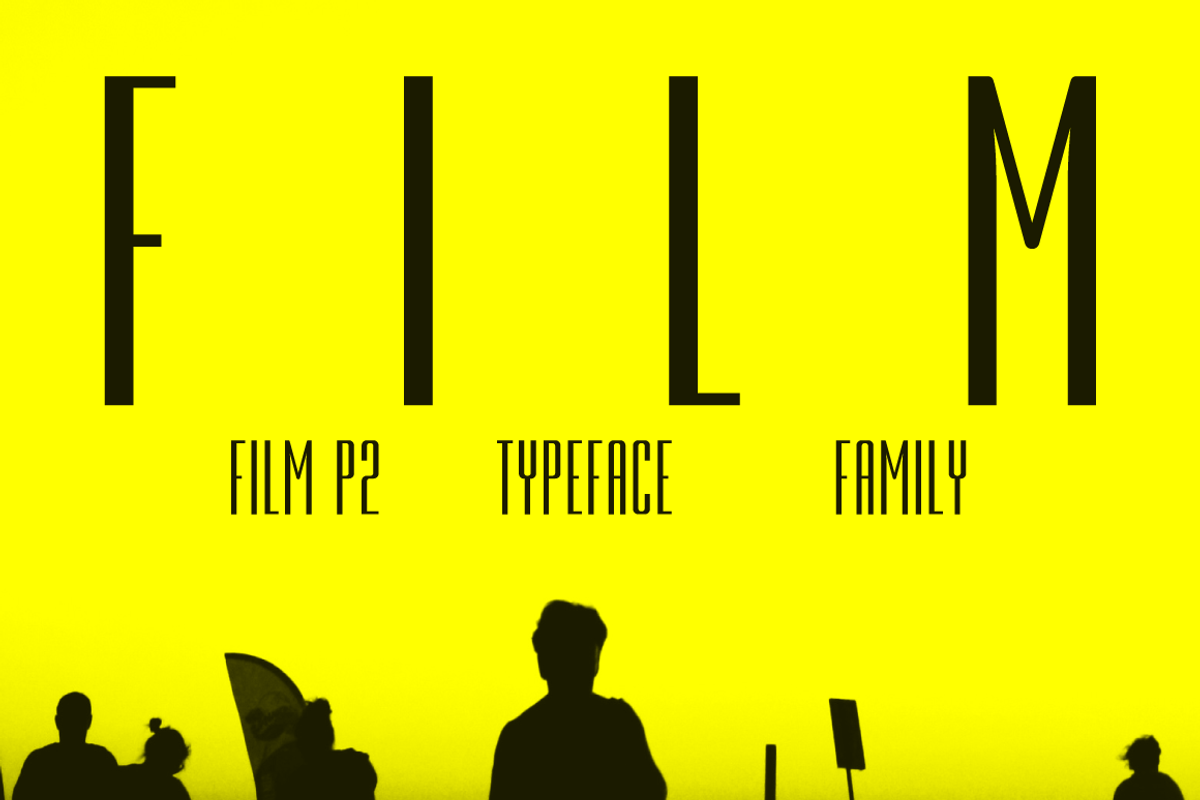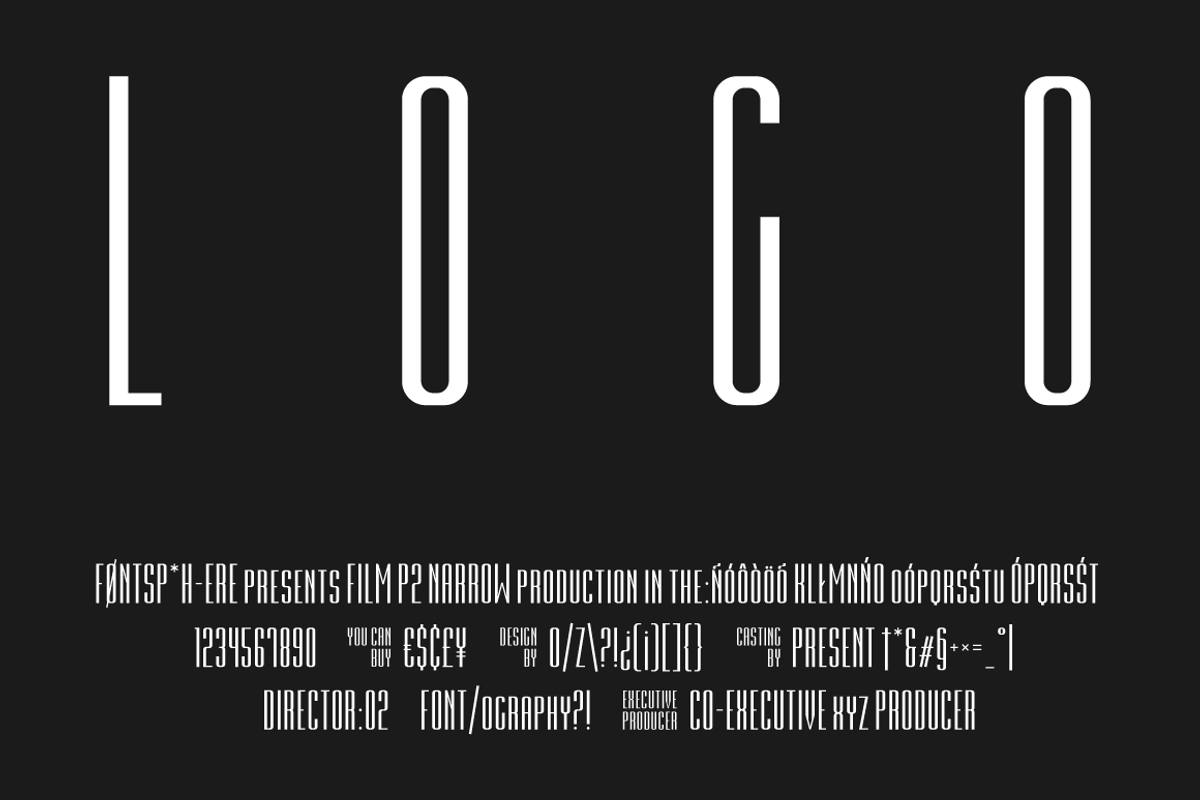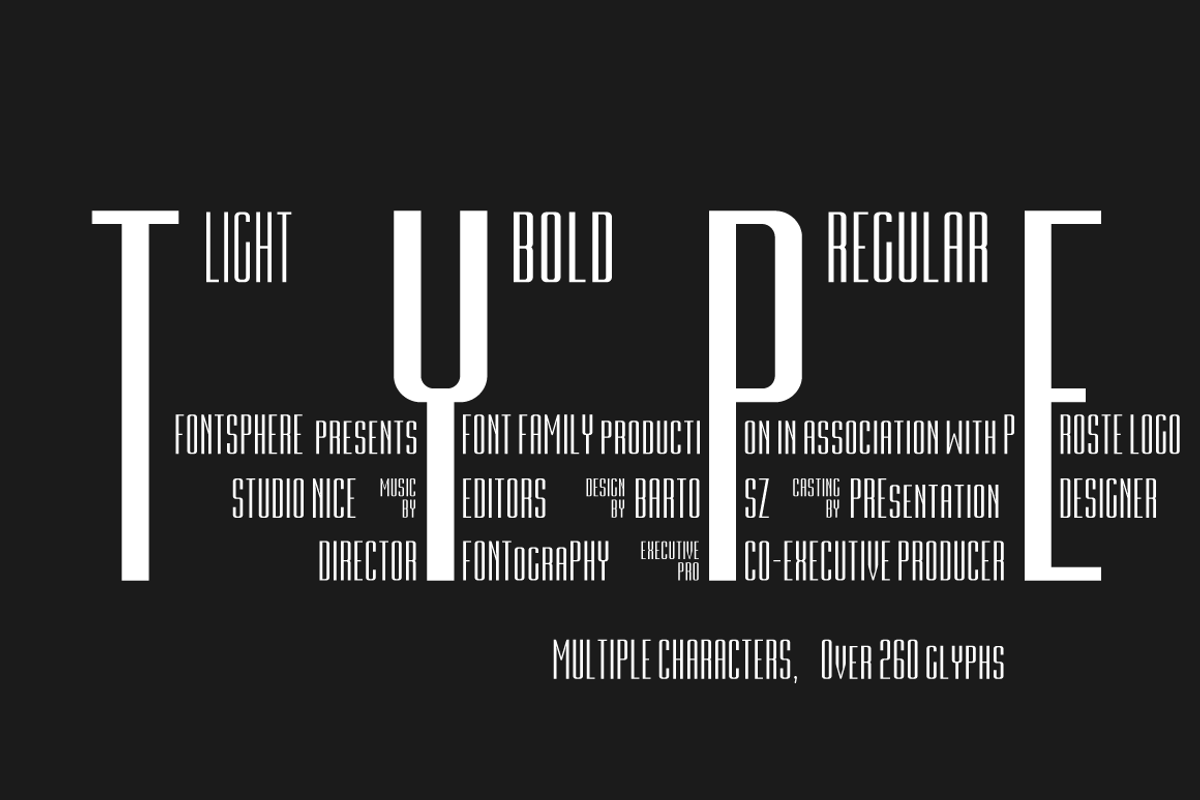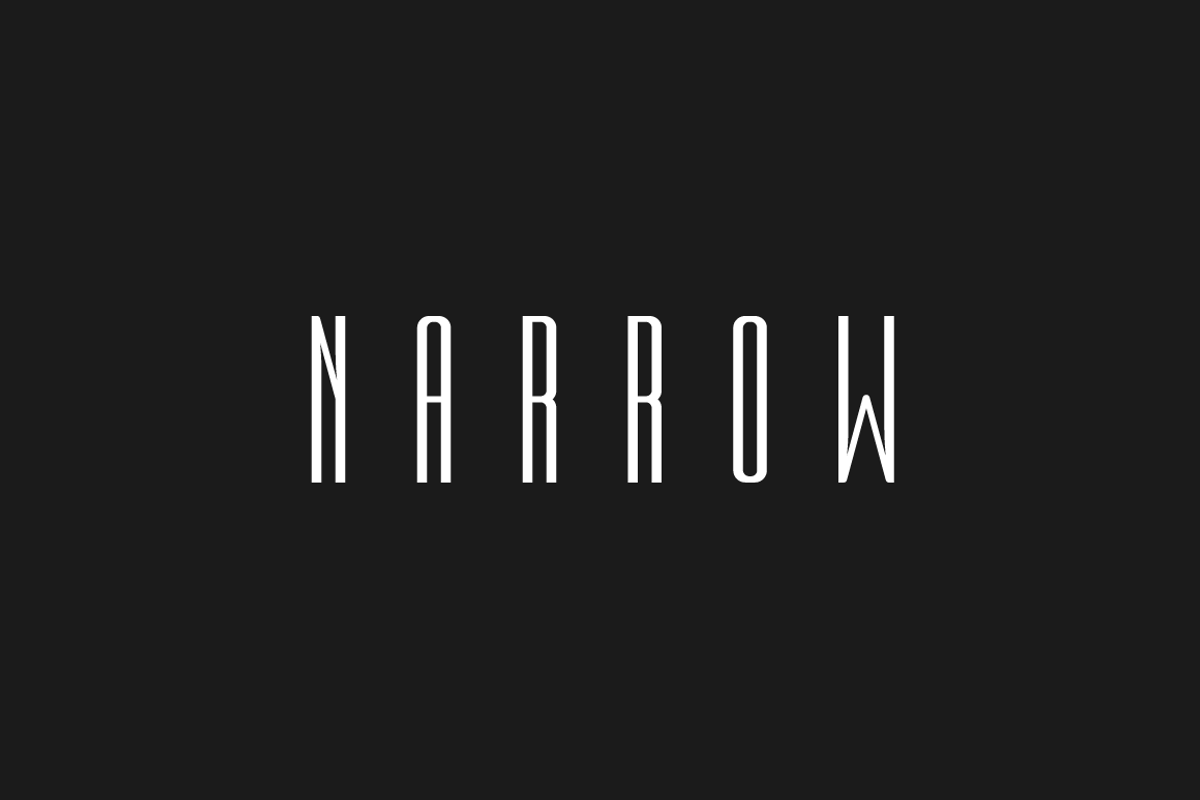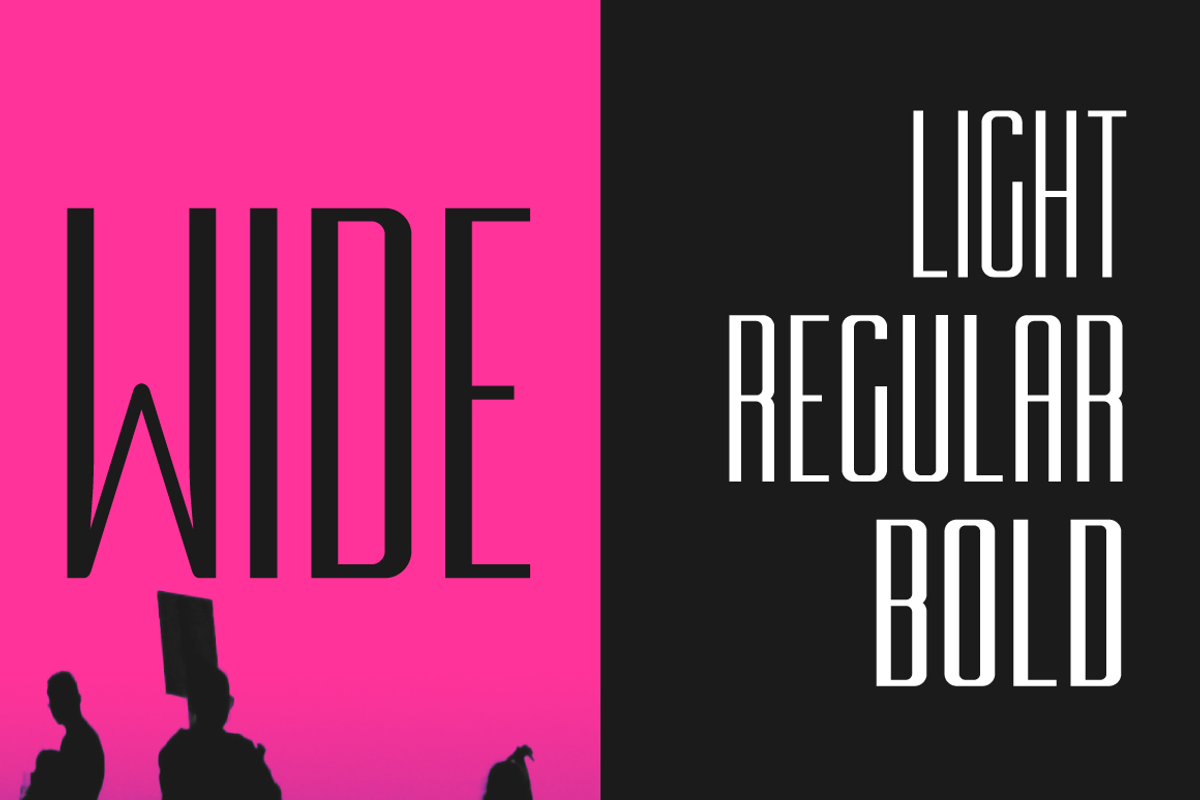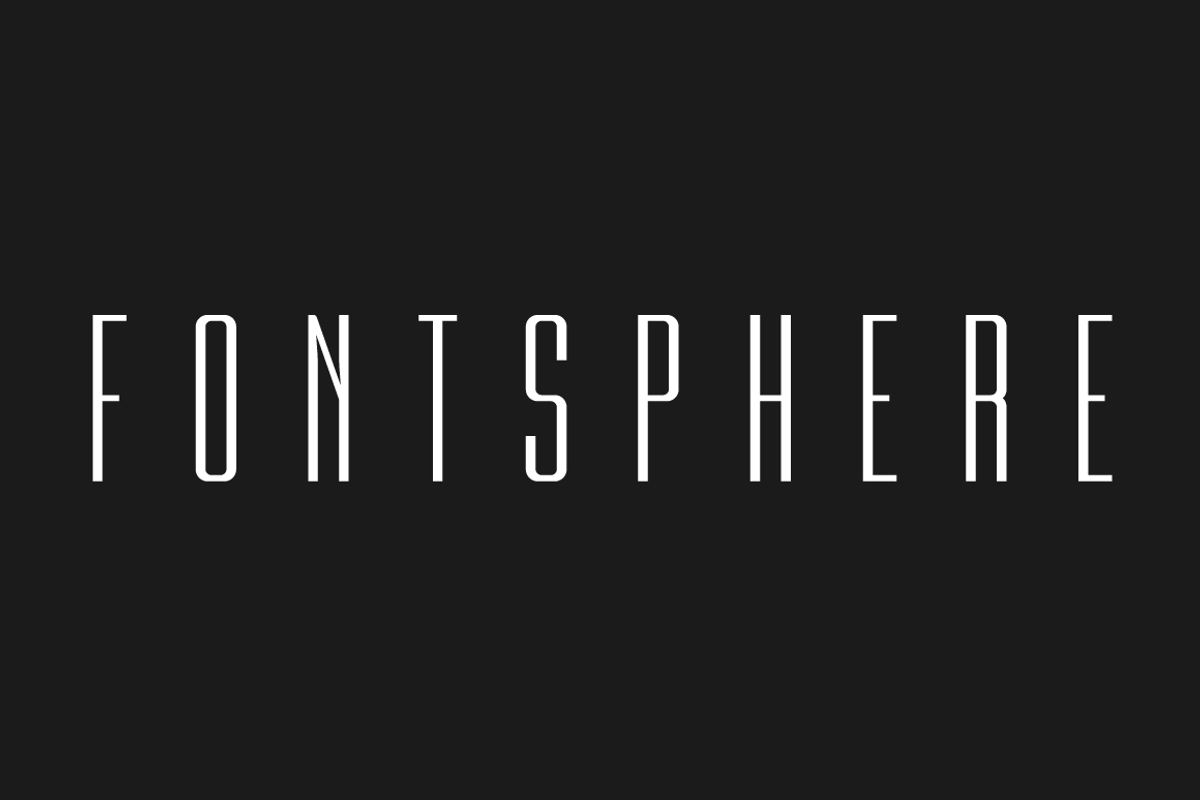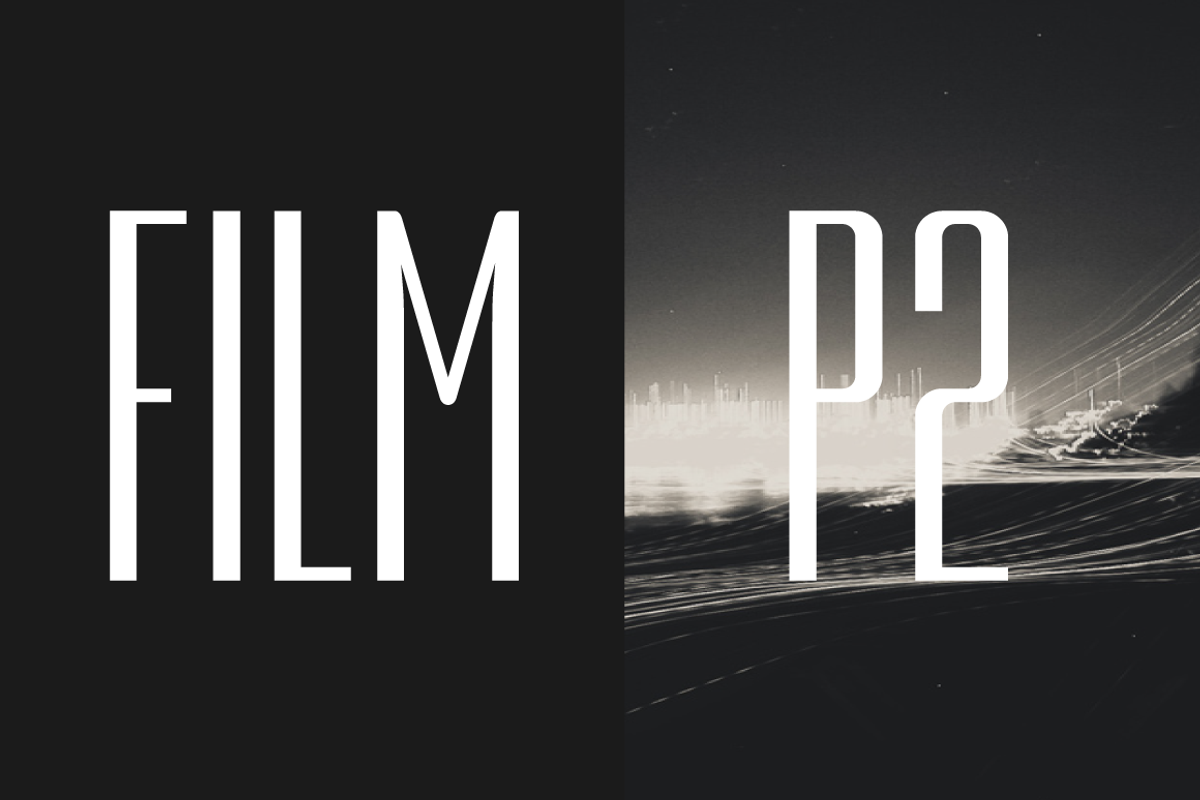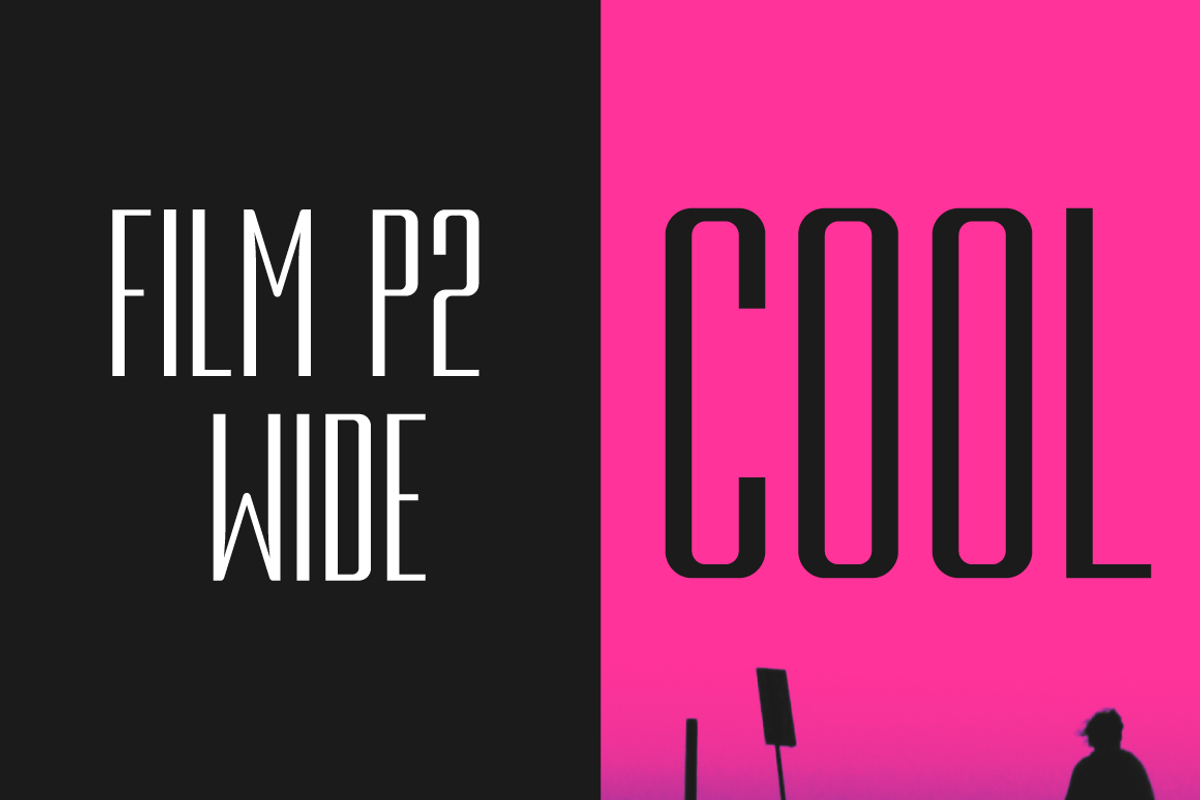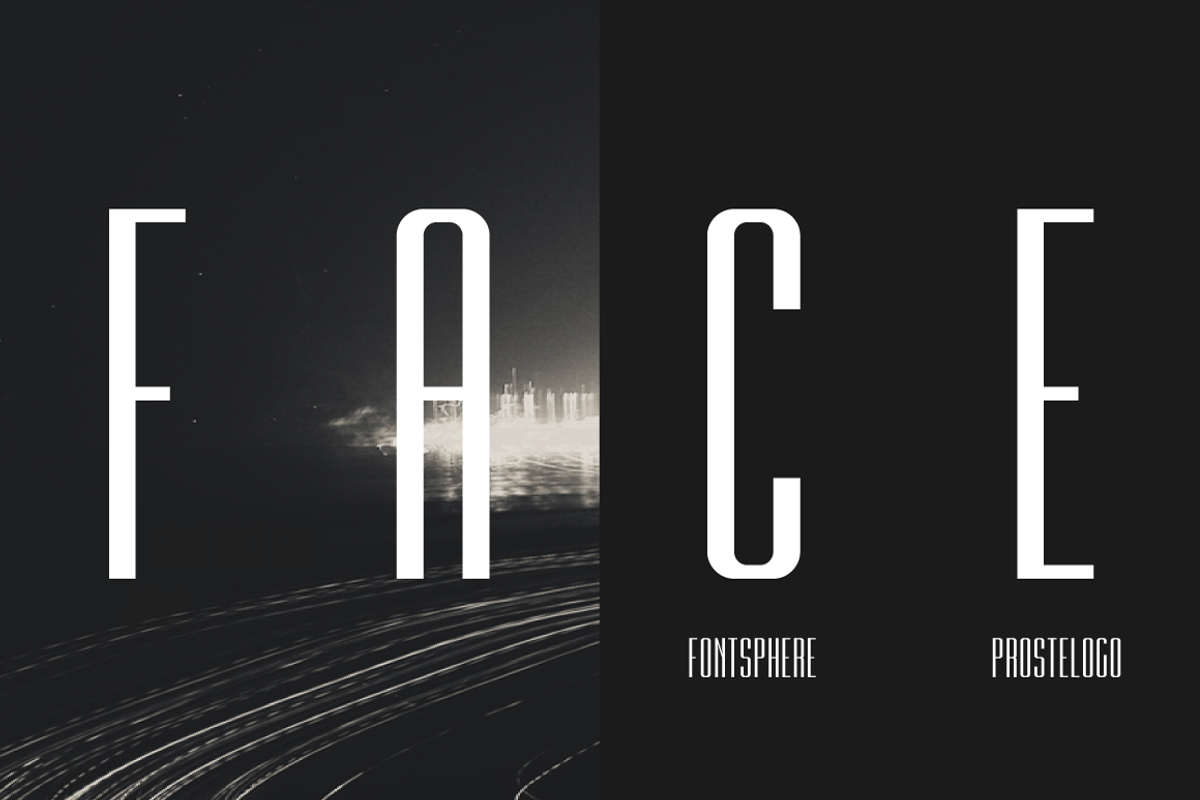
Film P2 | font 9-pack
Film P2 Font Family - 9 font pack:
Film P2:
- Film P2 Light
- Film P2 Regular
- Film P2 Bold
Film P2 Narrow:
- Film P2 Narrow Light
- Film P2 Narrow Regular
- Film P2 Narrow Bold
Film P2 Wide:
- Film P2 Wide Light
- Film P2 Wide Regular
- Film P2 Wide Bold
Film P2 is an Ultra Condensed sans serif display typeface designed by Bartosz Panek.
It is the follower of the geometric 'Film Poster' (https://creativemarket.com/fontsphere/3391522-Film-Poster-Family-9-Fonts-50OFF) which was inspired by futuristic movie posters. In Film P2, the letter design is more neutral, the font is more versatile, but no less expressive, which was one of the assumptions of the project. This allows many different application possibilities. In titles, headings, longer text compositions, bold and custom juxtapositions, and in many different formats.
The differences in the width of the letters in the narrow, regular, wide versions are not significant, they are fairly balanced, but they give a lot of variation depending on the method of application and design characteristics, e.g. text size, background type, etc.
The entire Film P2 Family offers many creative possibilities in graphic design, branding, printing and website design. Each font include multilingual support, numerals and a large range of special characters.